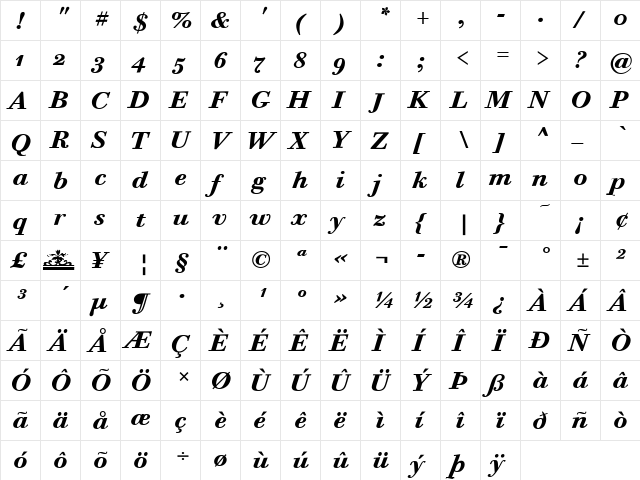
Bodoni Six ITC Bold Italic
Design Context for Bodoni Six ITC Typeface
Bodoni Six ITC offers clean, dependable letterforms without strong stylistic allegiance, making it a practical choice for designers who need flexibility. The slanted form adds forward momentum and visual energy. Its bold stroke weight gives it real presence on the page.
Pro Tip: Use Bodoni Six ITC for emphasis, pull quotes, and subheadings where its slanted energy can add rhythm to the layout.